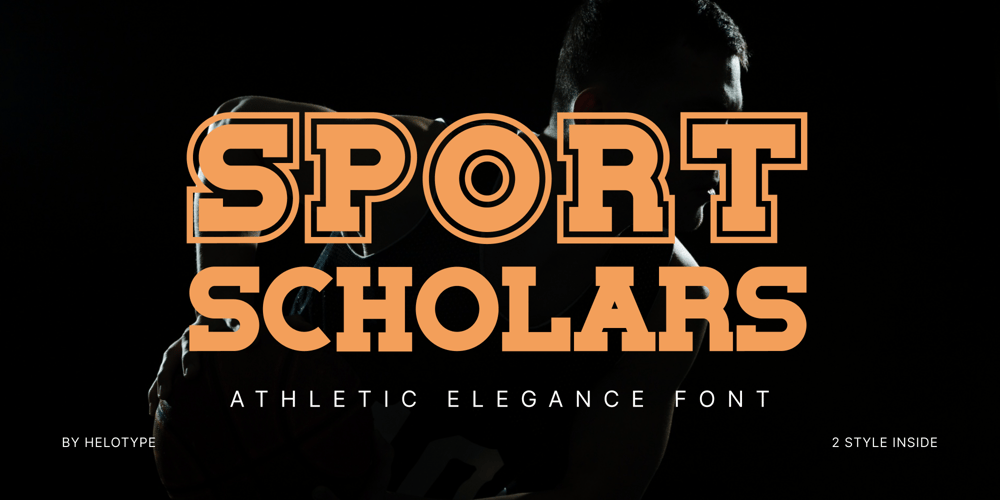
HT Sport Scholars
HT Sport Scholars font
HT Sport Scholars Font Family was designed by Yudi Setiawan and published by Wyarecreatype. HT Sport Scholars contains 2 styles and family package options. Introducing Sport Scholars, a vibrant and dynamic font that ignites the spirit of athleticism. Its unique design expertly captures the exhilarating rush of the field, making it an impeccable choice for sports-oriented projects from posters to t-shirts, jerseys, and sports logos. Embellish your merchandise with Sport Scholars, or use it to bring a touch of sporty energy to advertising materials and websites. A playground for designers, this font is sure to infuse your creations with an irresistible athletic appeal.–Uppercase